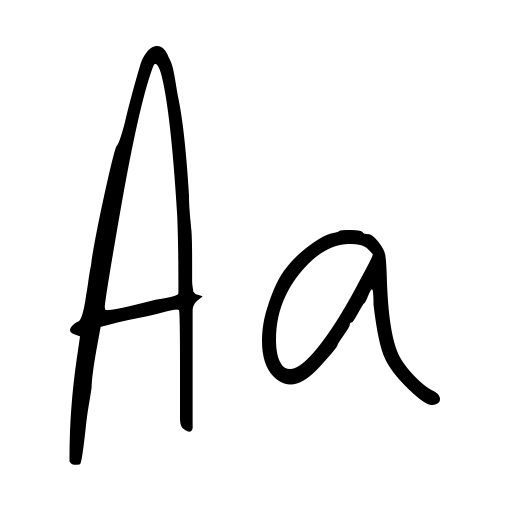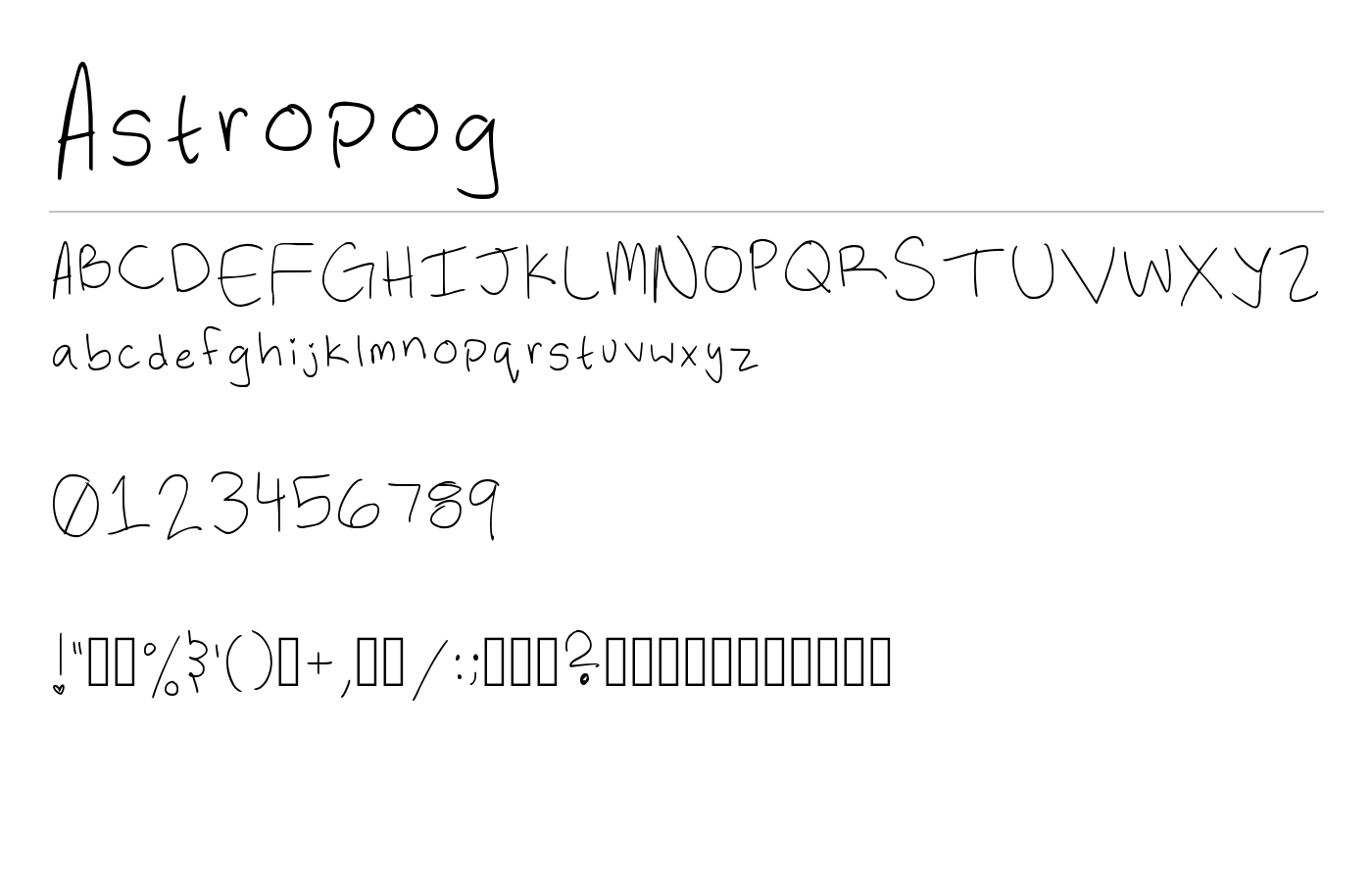
Astropog is a playful, hand-drawn sans serif font with a light weight and slender, tall letterforms that give it an airy, casual feel. Its uneven strokes and quirky shapes make it charming and approachable, perfect for creative projects, children’s materials, or informal branding that wants to evoke friendliness and spontaneity. This font works best in headlines, invitations, or digital designs where a personal, handwritten touch is desired.
Astropog Font